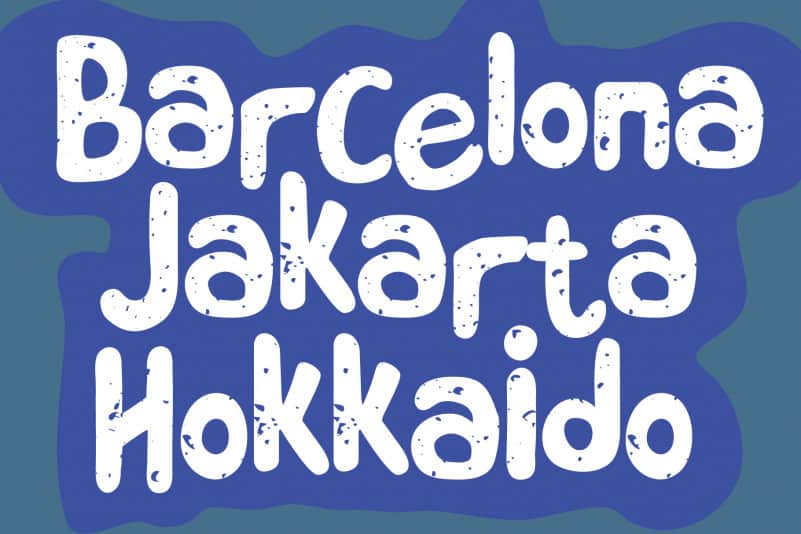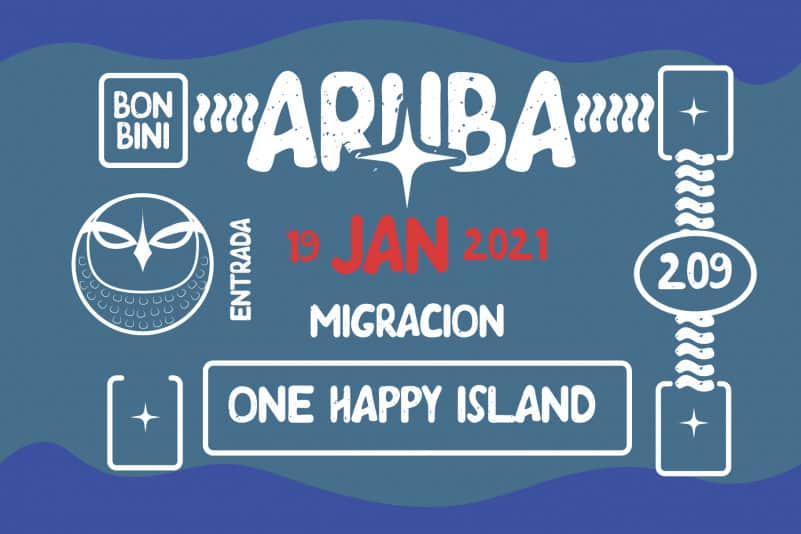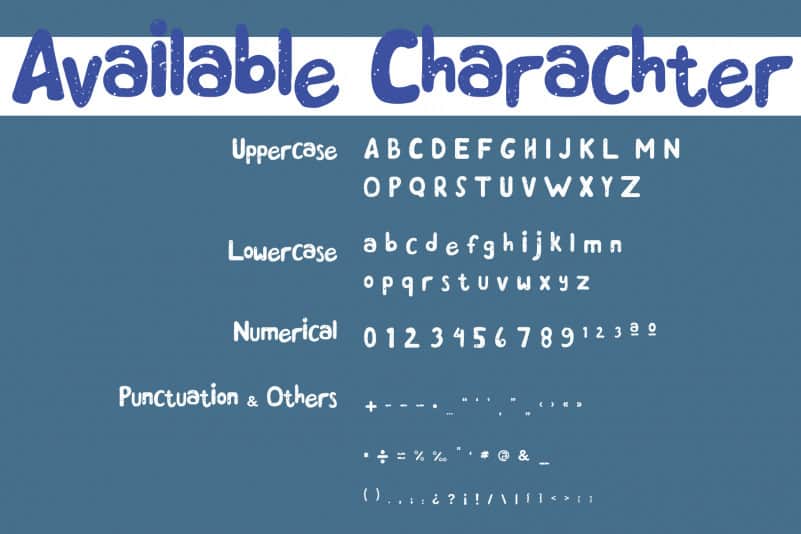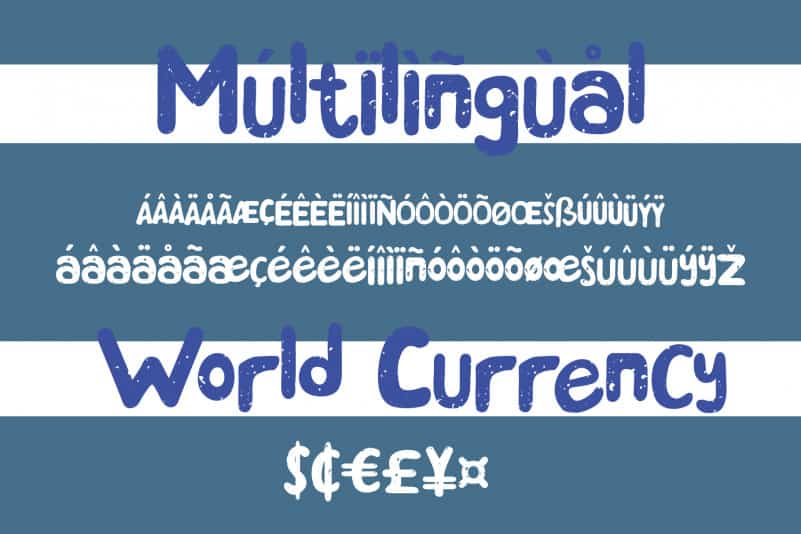
Stamp Method Display Font, a display font that heavily inspired by a vintage typeface from the ’90s, but slightly influenced by contemporary art style. With its free style, this font specifically design to complement your project and make it stand out even more.